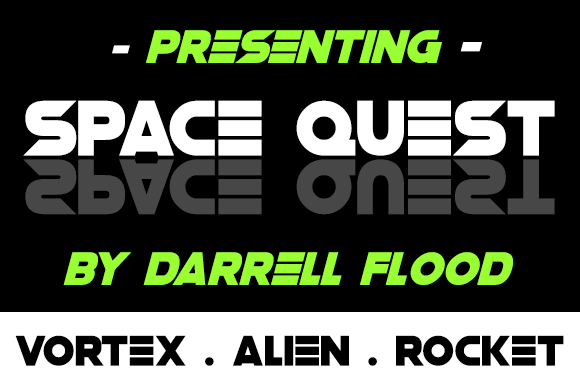
Squaresharps Font
The Squaresharps is a futuristic, robot-like font, with sharp features, set in a tile-like grid. Perfect for sci-fi themes and tech presentations!